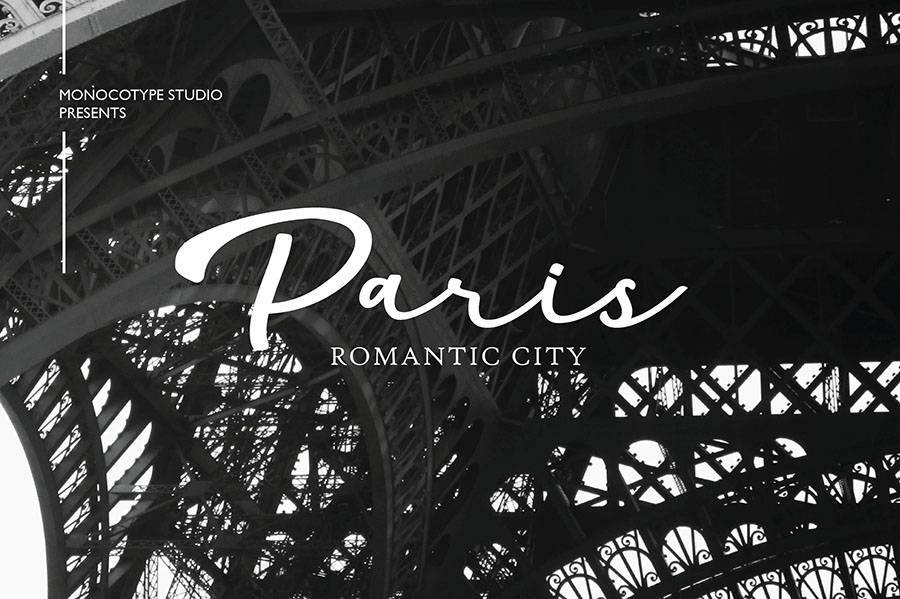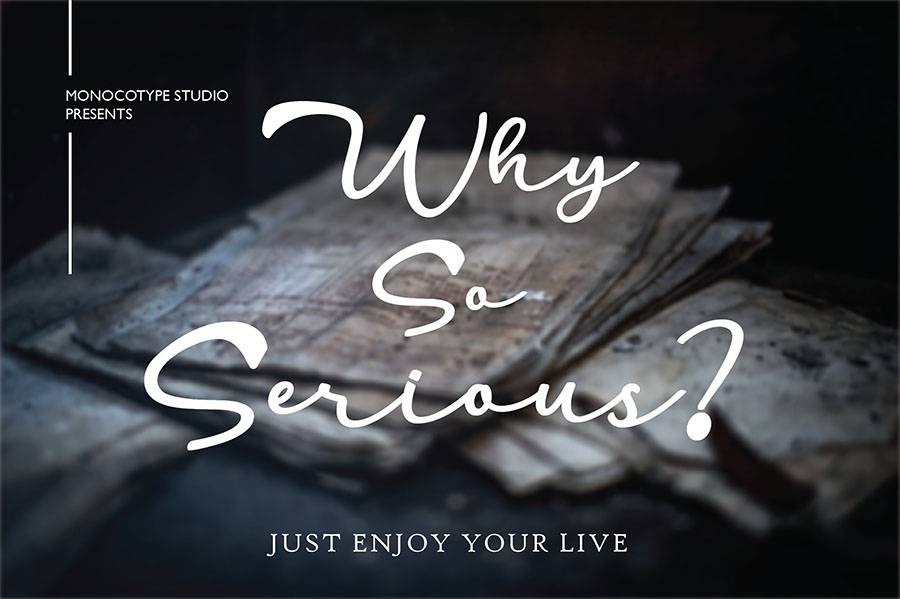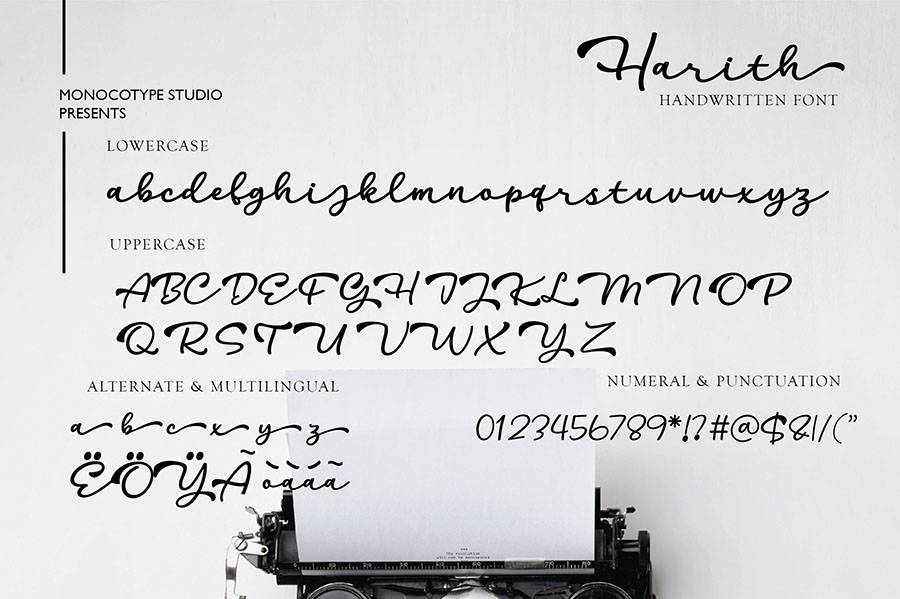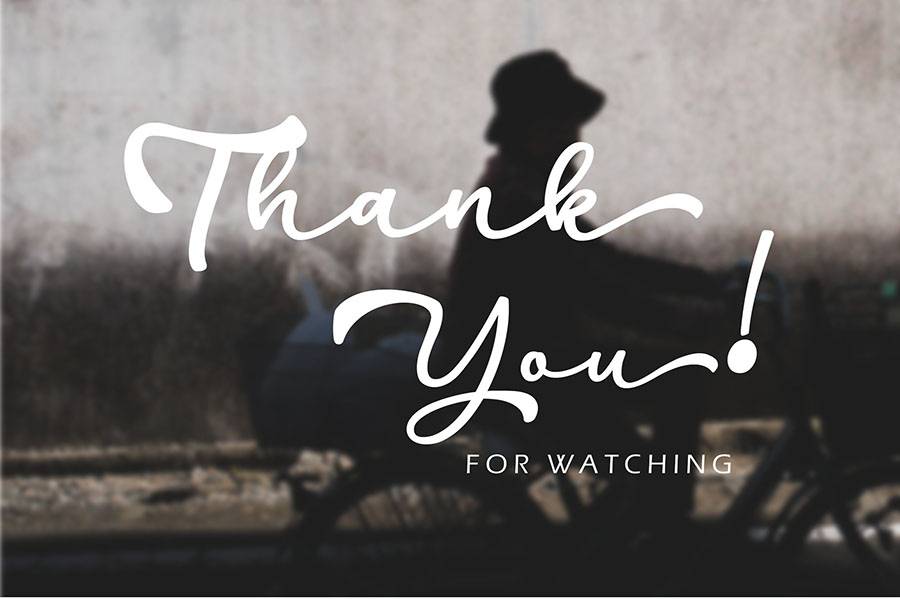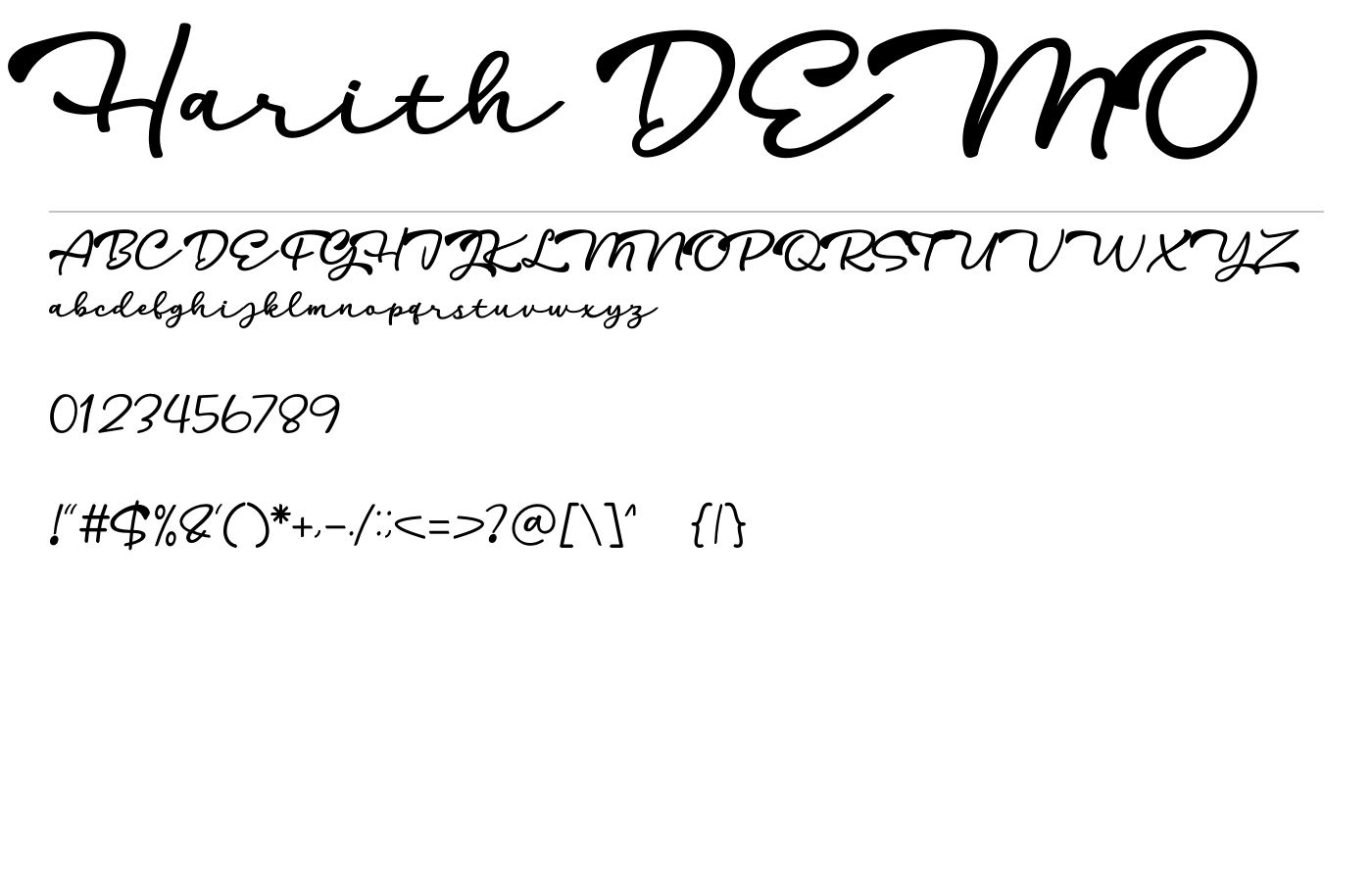
Harith Script Demo is a graceful and casual script font with a smooth, flowing stroke that mimics natural handwriting. Its light to regular weight and elegant curves give it a friendly yet refined personality, making it ideal for invitations, branding, and creative projects where a personal touch is desired. This font works well in headlines and logos where a stylish, approachable handwritten feel is needed.
Harith Script Demo
About Harith Script Demo
| Font family | Harith Script Demo |
| Designer | Refialdi Dwi Putranto |